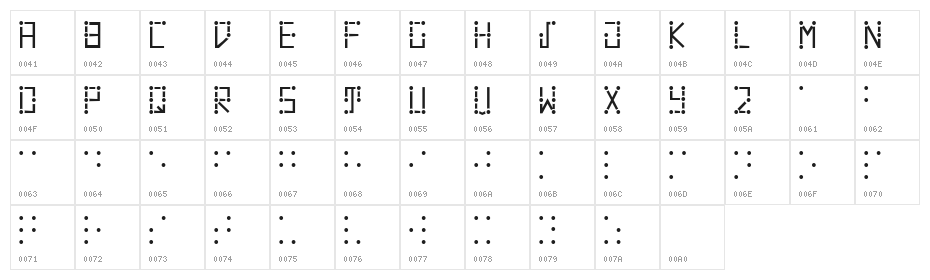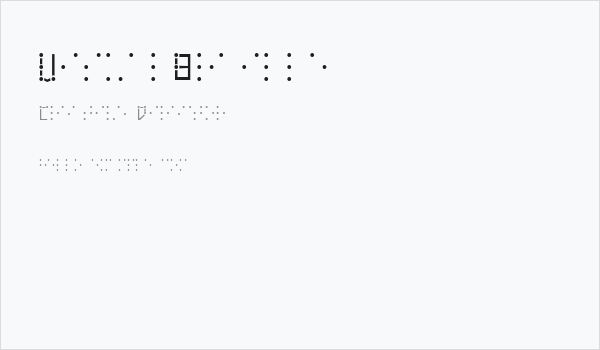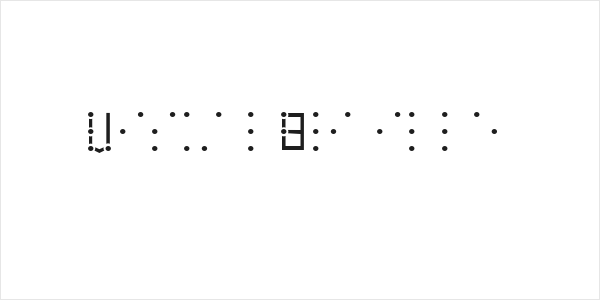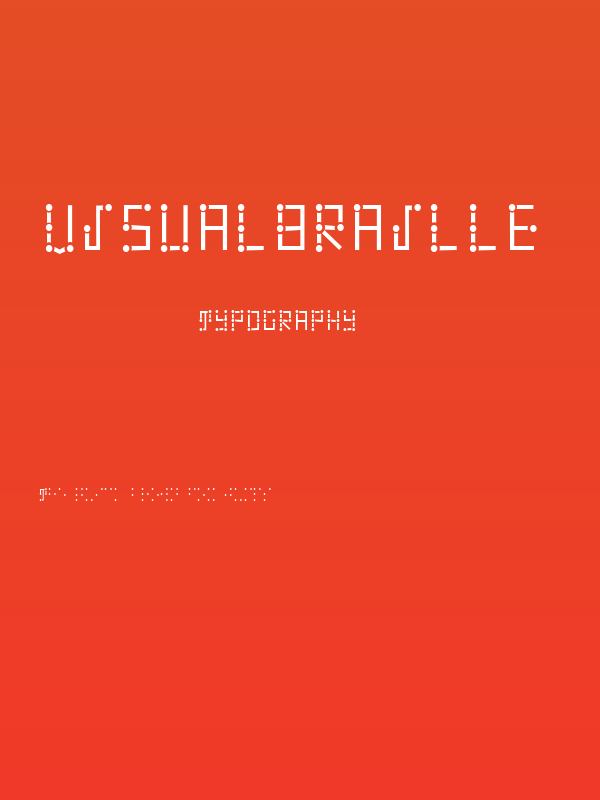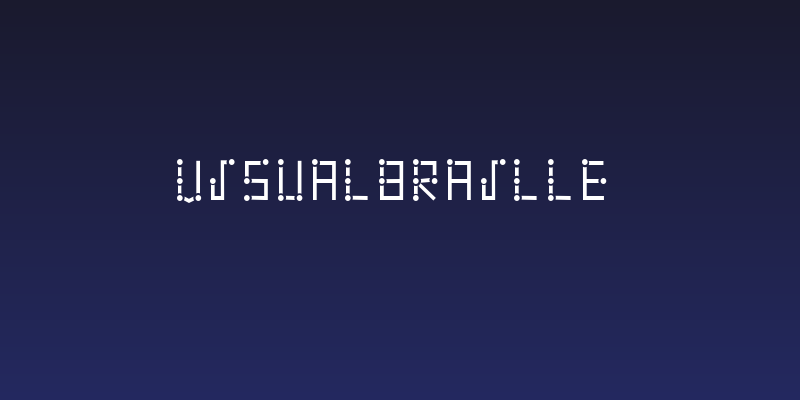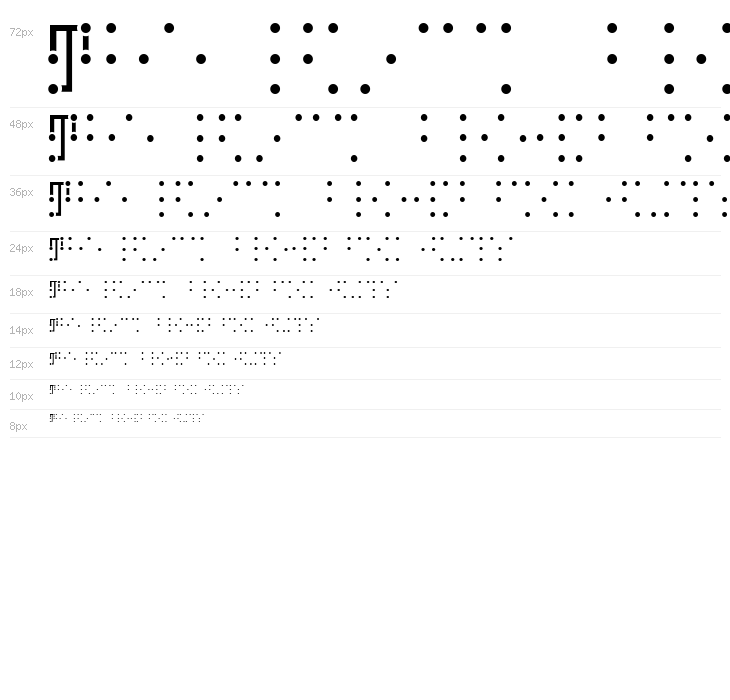
VisualBraille Font
VisualBraille Description
This font creatively combines the visual elements of Braille with a modern, geometric design. Each character is constructed using a series of dots that mimic the tactile nature of Braille, while maintaining a clear, readable form for sighted users. The uppercase letters are bold and structured, with a distinct, angular appearance that adds a contemporary flair. The lowercase letters follow a similar pattern, ensuring consistency across the typeface. Numbers and special characters are also designed with the same dot-based structure, providing a cohesive look throughout. This font is ideal for projects that aim to bridge the gap between visual and tactile communication, offering a unique aesthetic that is both functional and visually appealing.